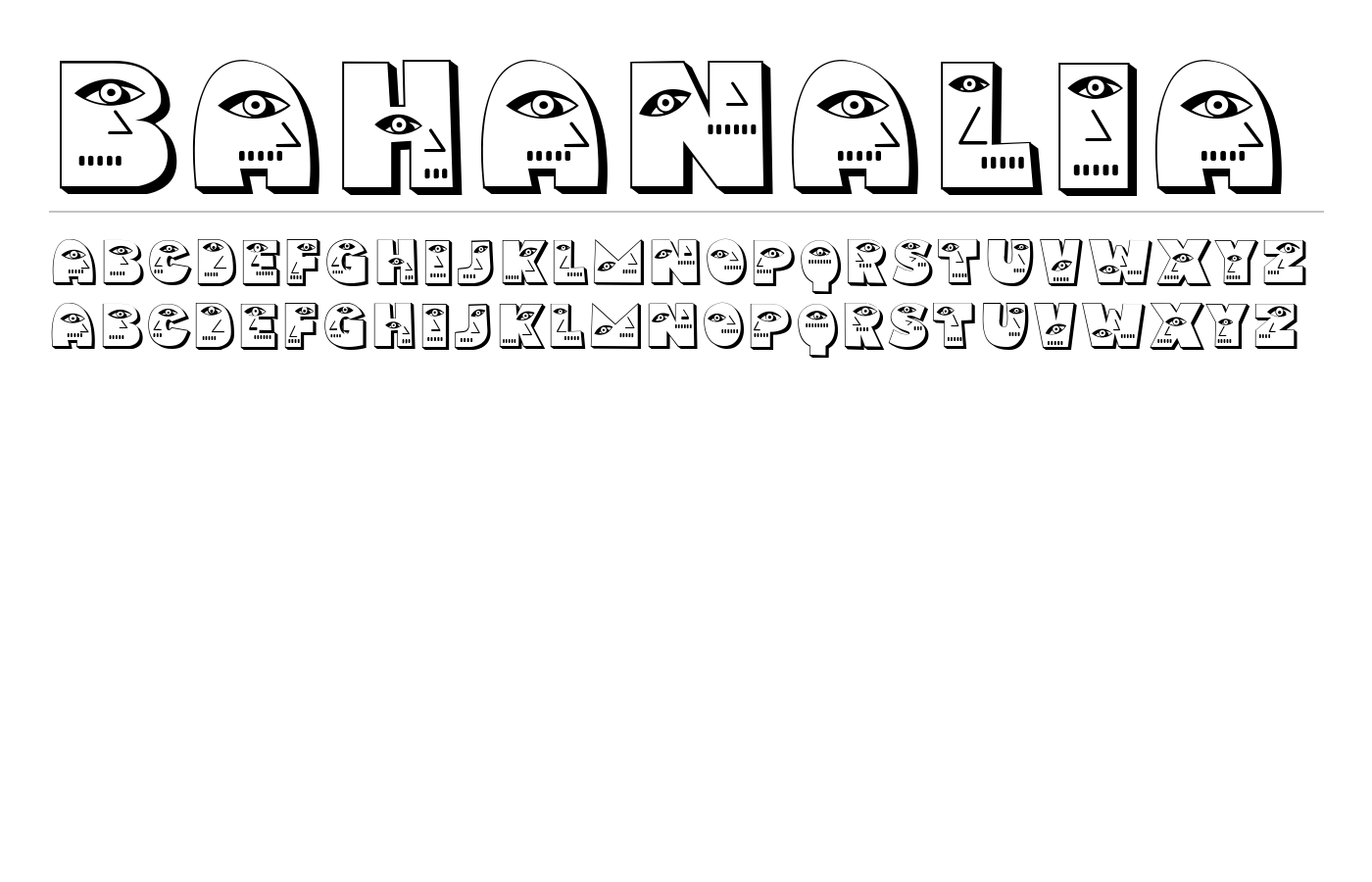
Bahanalia is a unique display font that combines bold, blocky letterforms with playful, illustrative details reminiscent of tribal or mask-like faces, giving it an artistic and quirky personality. Its heavy weight, strong geometric shapes, and whimsical internal elements make it ideal for eye-catching headlines, logos, and creative projects needing a distinctive, expressive style that stands out. This font works especially well in designs aiming to convey creativity, fun, and individuality with a bold visual impact.
Bahanalia Font
About Bahanalia Font